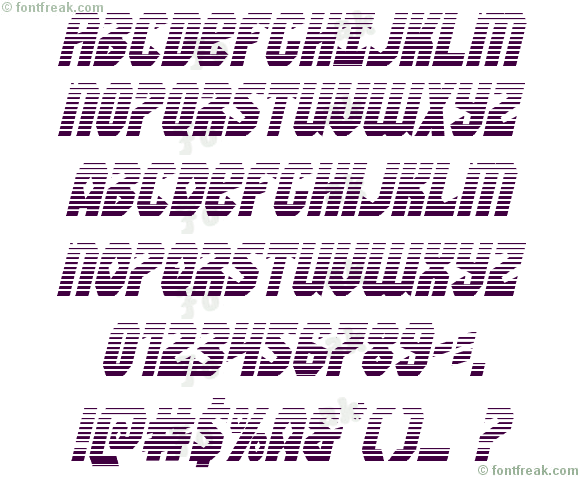
Warrior Nation Gradient Regular
About Warrior Nation Gradient Regular
The Warrior Nation Gradient Regular font, designed by Daniel Zadorozny, falls under the display category, making it an excellent choice for attention-grabbing designs. This font features a unique gradient effect that adds depth and visual interest, enhancing its appeal. The stroke weight is consistent, with a moderate contrast that allows for readability while maintaining a striking presence. The spacing is well-balanced, ensuring that each letter stands out without feeling cramped. The design incorporates decorative elements that evoke a sense of strength and dynamism, making it suitable for various creative projects.
Ideal use cases for the Warrior Nation Gradient Regular font include movie posters, where its bold and eye-catching style can effectively convey action and excitement. It's also perfect for branding materials for sports teams or fitness brands, as it resonates with themes of strength and resilience. Additionally, this font can enhance restaurant menus, particularly for establishments with a modern or edgy vibe, capturing the attention of diners. Graphic designers and content creators will find this font particularly appealing as it adds a unique flair to promotional materials and social media graphics.
Targeting a diverse audience, the Warrior Nation Gradient Regular font caters to graphic designers seeking innovative typography, small business owners looking to create memorable branding, and content creators wanting to make their visuals pop. The font stands out not just for its aesthetic qualities but also for its versatility across different applications. With the Warrior Nation Gradient Regular font free download, users can easily access this distinctive typeface and incorporate its bold design into their projects, elevating their visual storytelling to new heights.